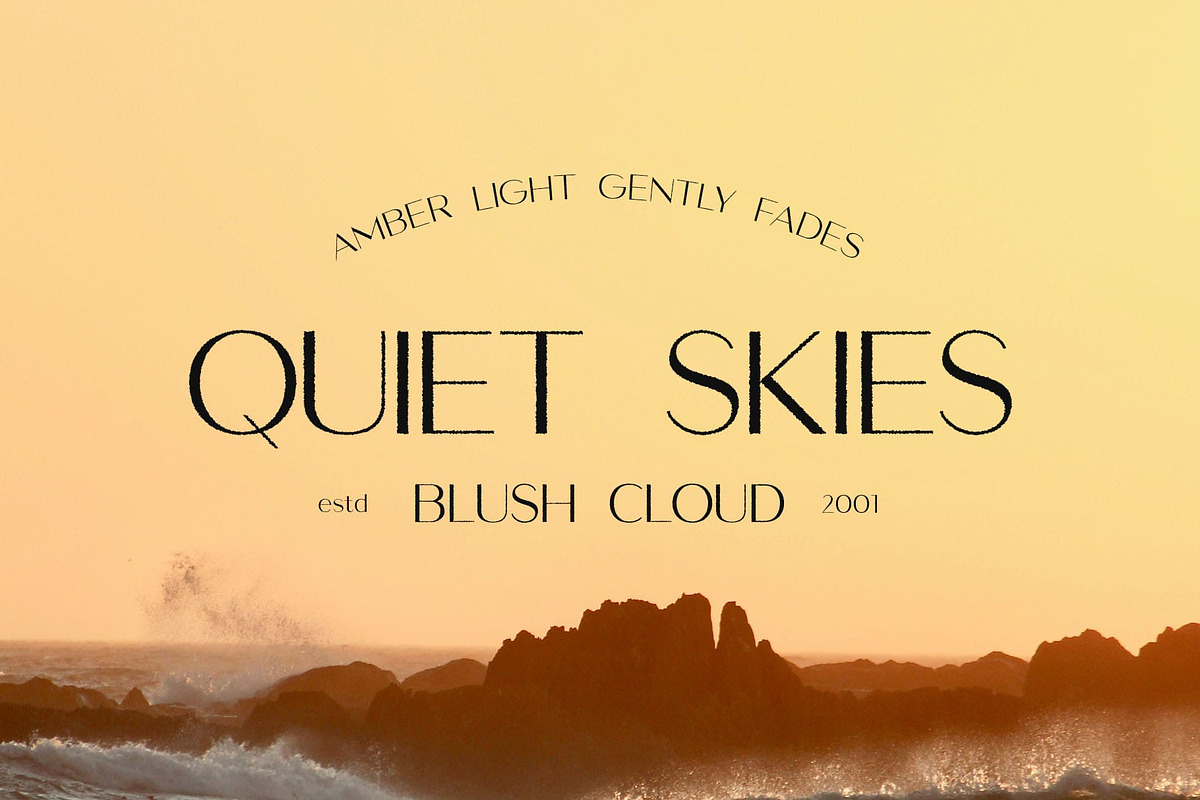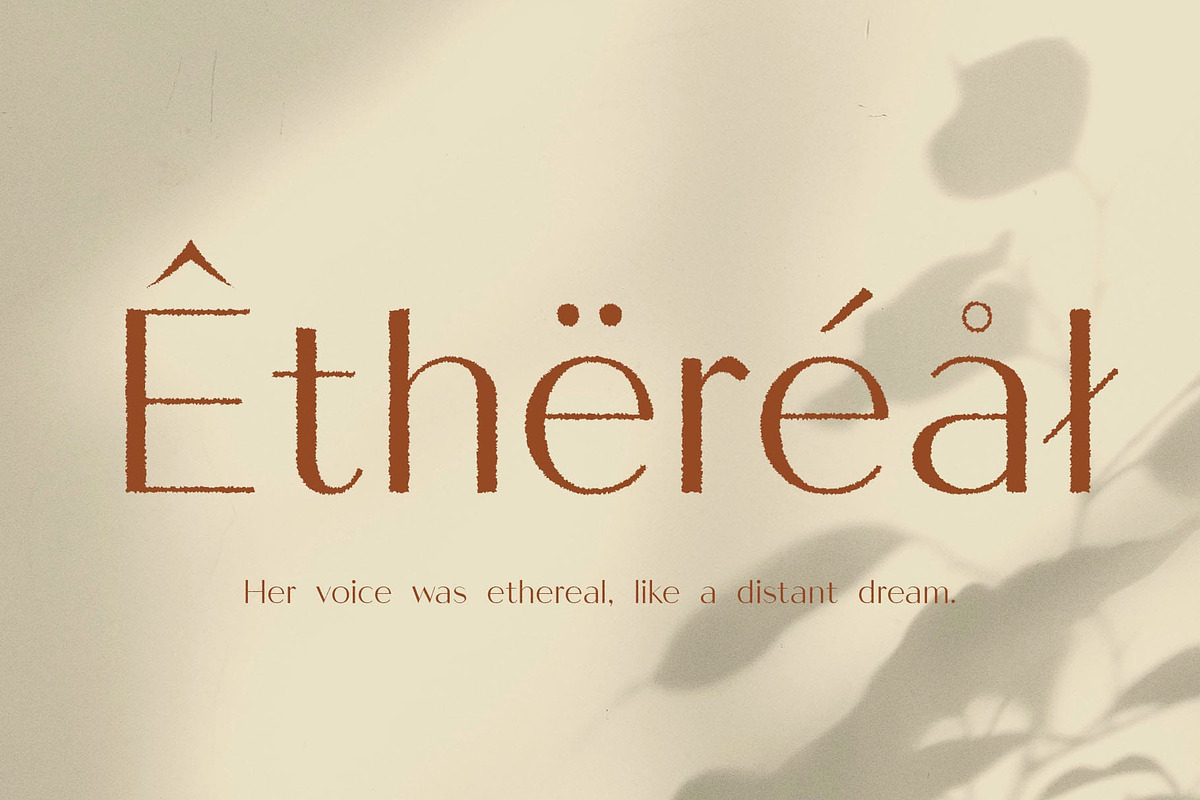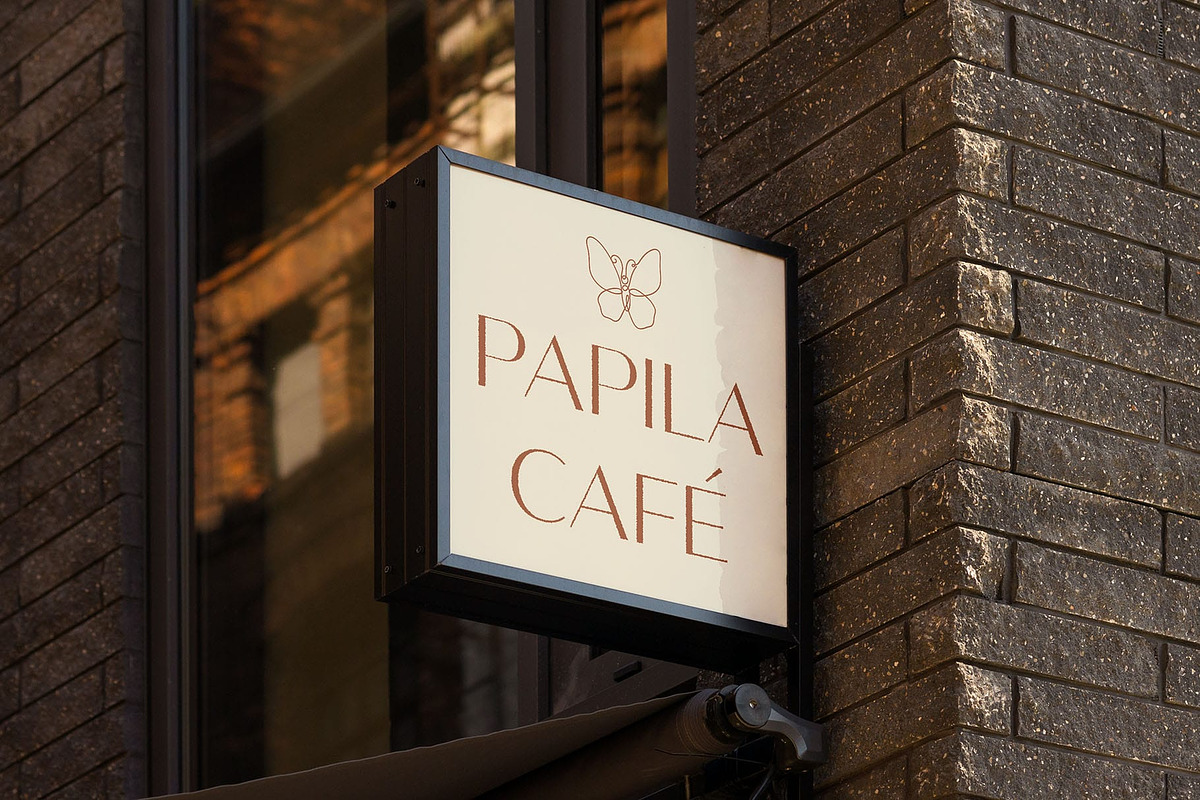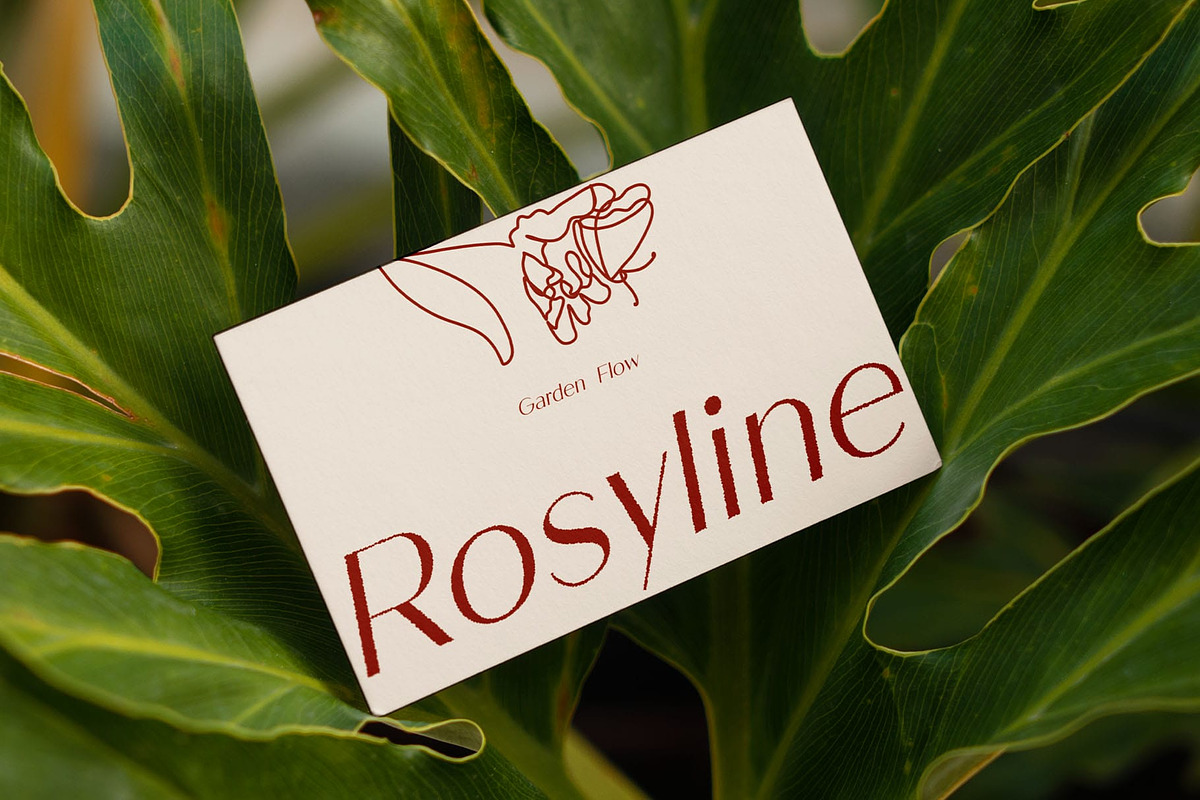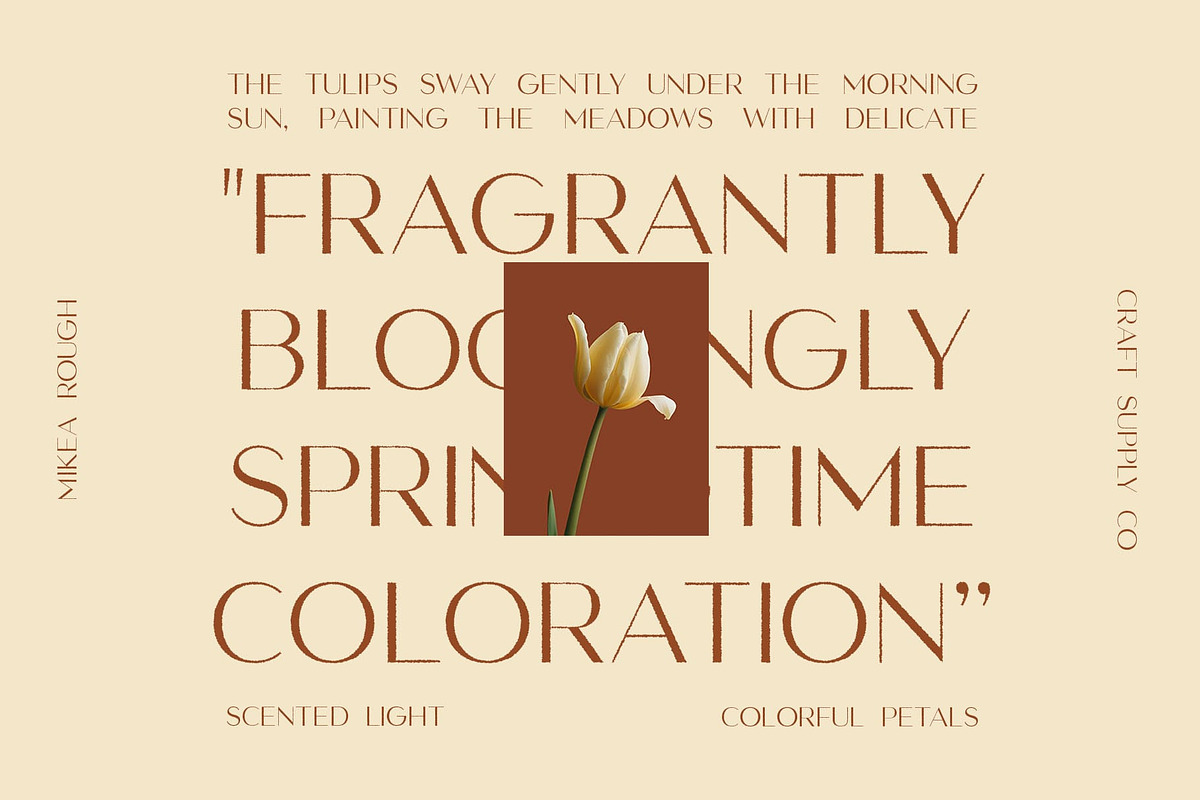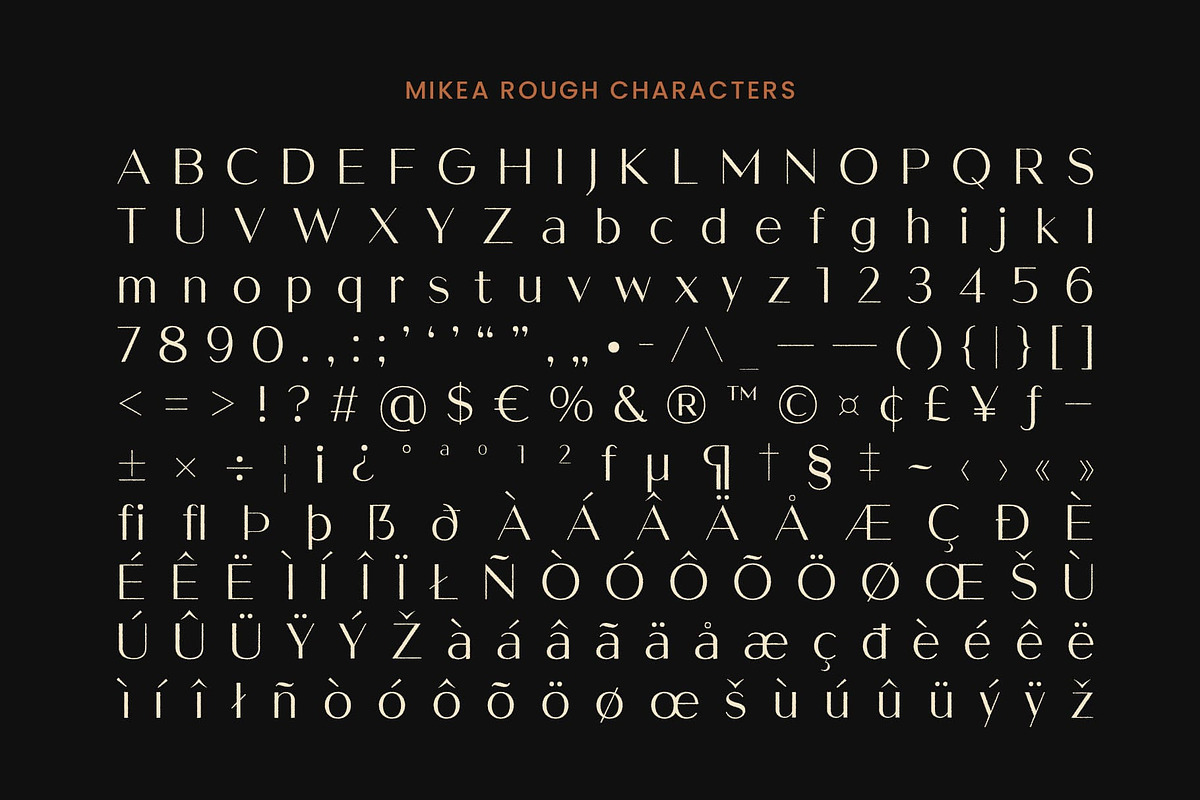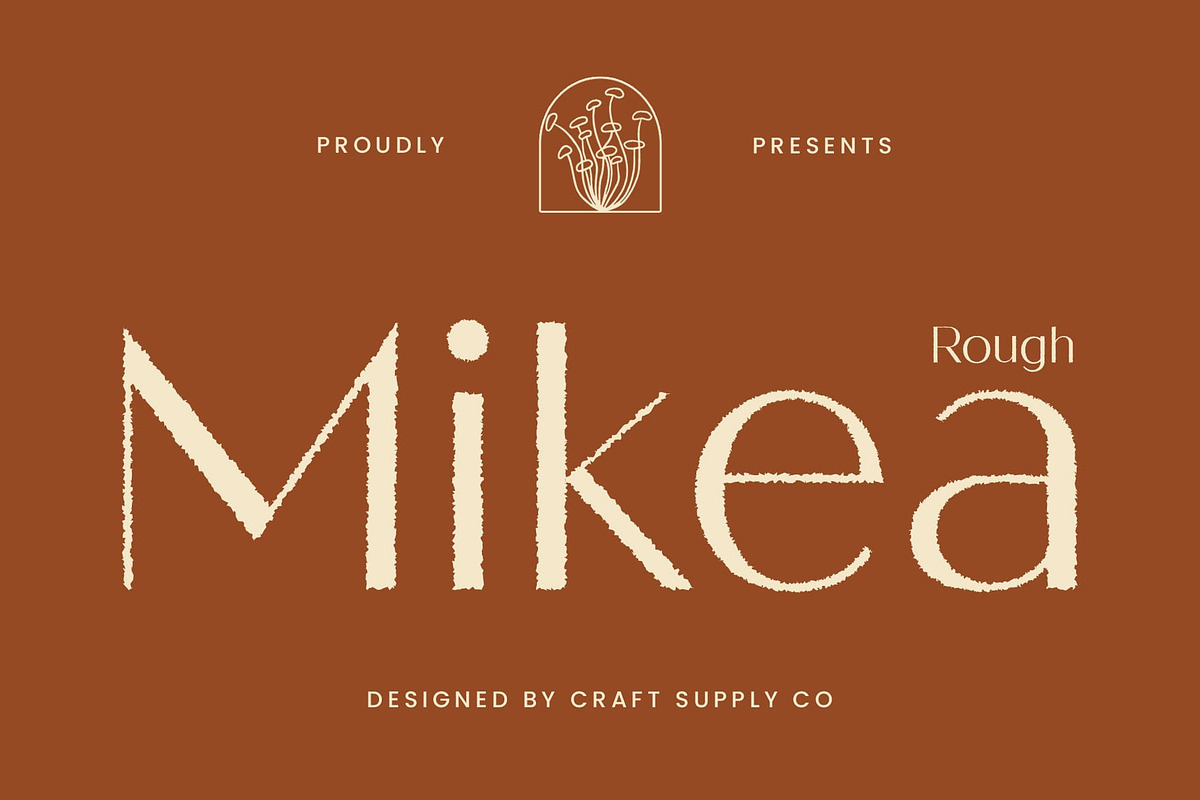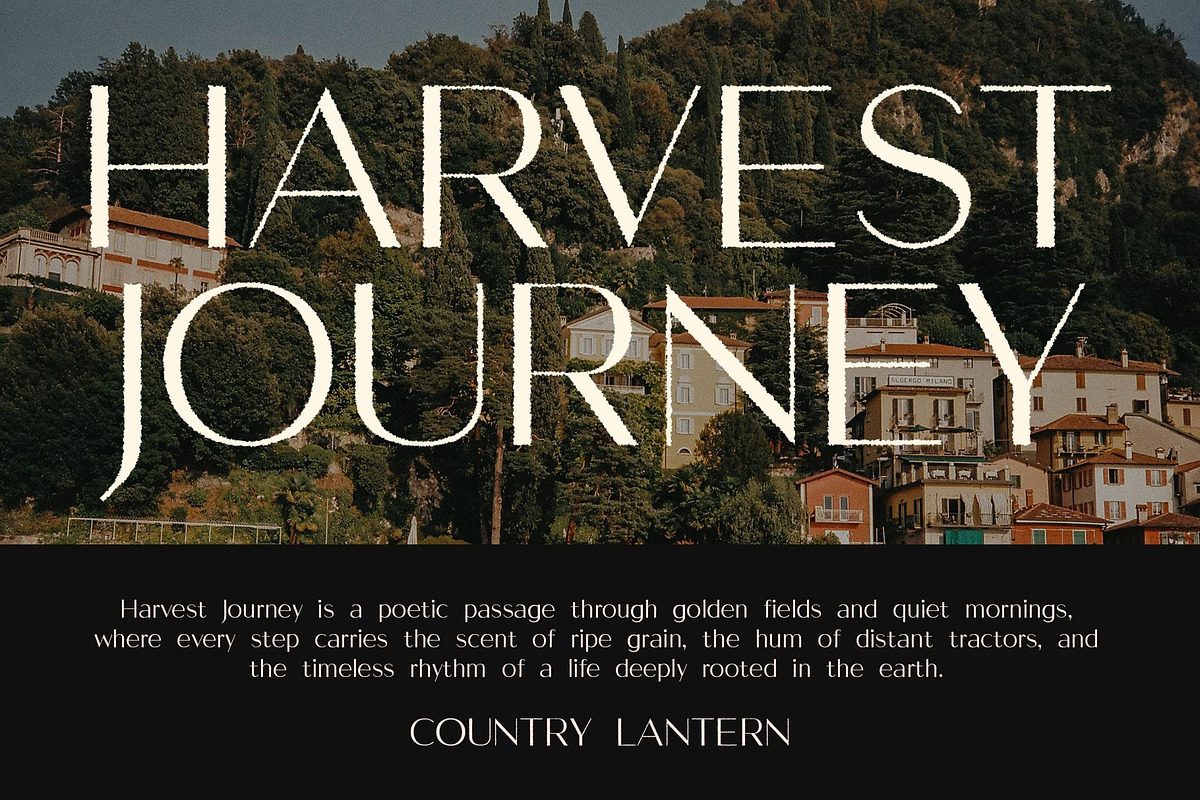
Mikea Rough
Mikea Rough Font – Clean Modernism with a Textured Edge
Minimalist and Contemporary Sans-Serif Style Mikea Rough is a modern sans-serif font that embraces simplicity through its clean lines and geometric structure. Designed with a minimalist aesthetic in mind, it offers a contemporary and elegant look that feels refined, stylish, and highly versatile—perfect for modern visual communication.
Rough Texture for Distinctive Character What sets Mikea Rough apart is its subtle rough texture, which introduces a handcrafted, organic feel to its otherwise sleek form. This raw detail adds depth and contrast, giving the font an expressive edge while preserving its clarity and professionalism.
Perfect for Bold Branding and Editorial Design Whether used in high-impact branding, chic editorial layouts, or stylish packaging, Mikea Rough delivers a confident presence. Its blend of minimalist elegance with a textured finish makes it suitable for fashion-forward brands, lifestyle content, and creative projects that seek modern sophistication with a twist.
Elegant Simplicity with an Artistic Finish Mikea Rough brings together the best of clean modernism and textured individuality. It’s a go-to font for designers who want to keep things sleek and contemporary—while adding just the right touch of personality and visual intrigue.